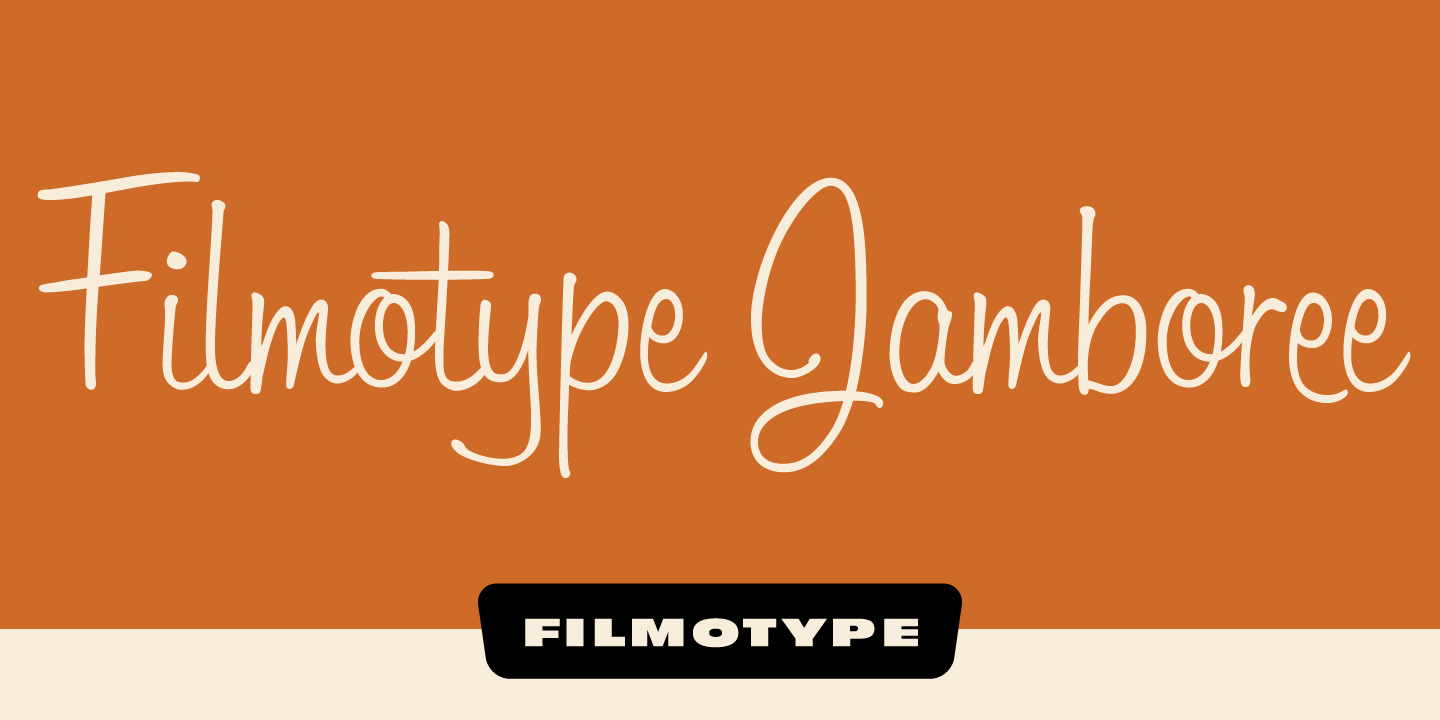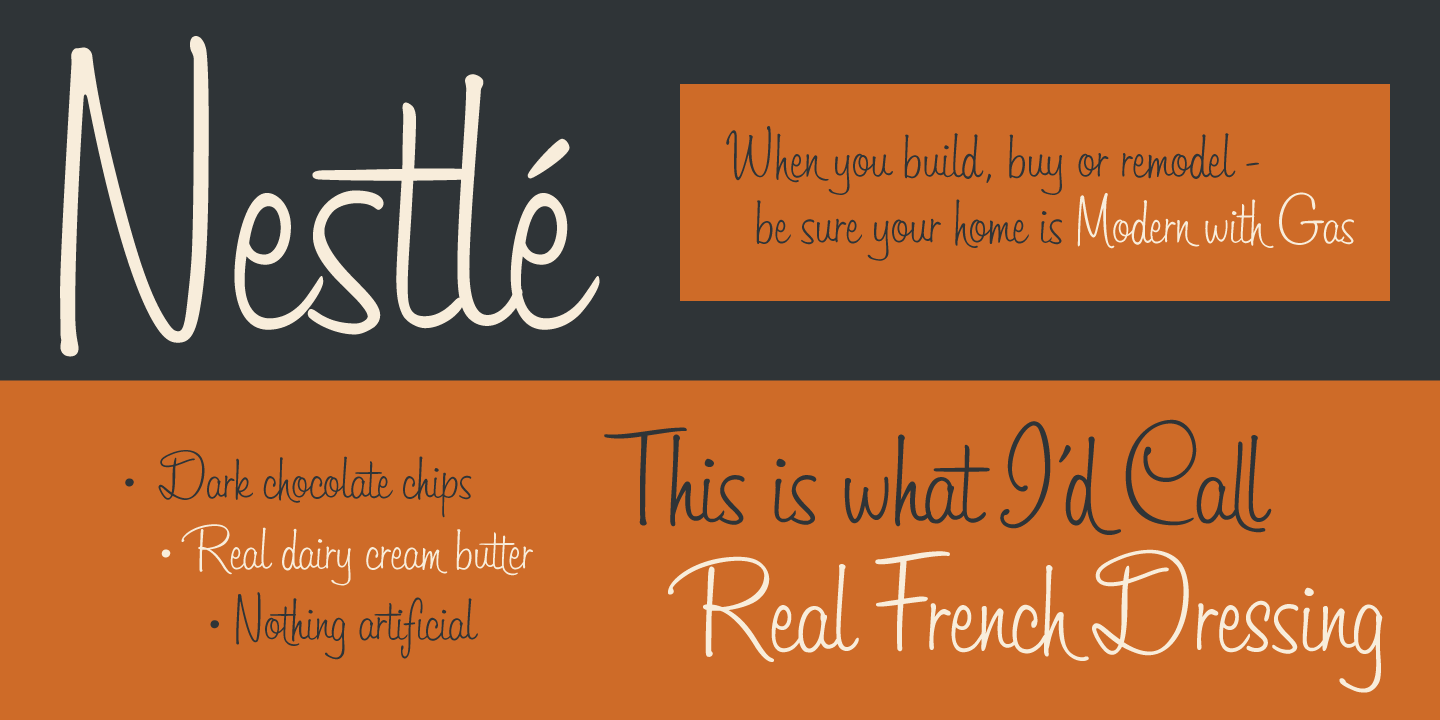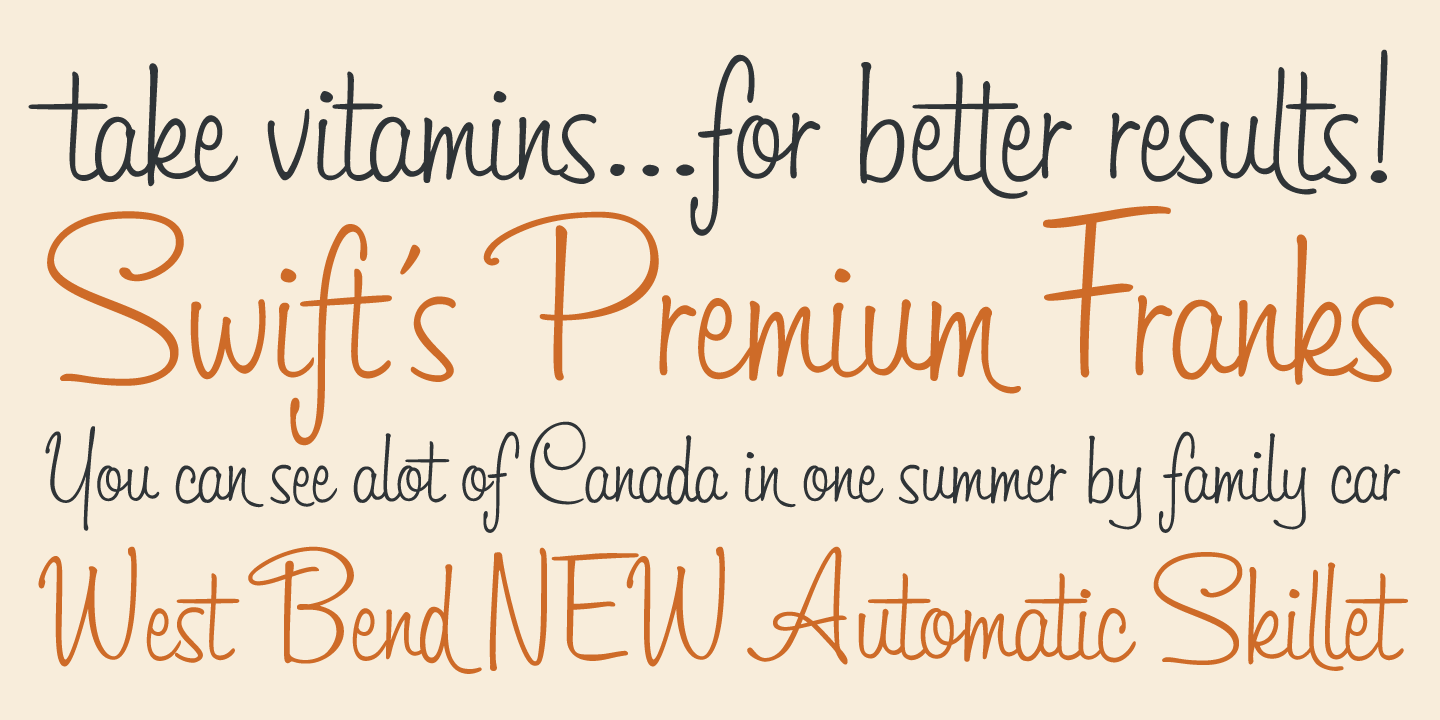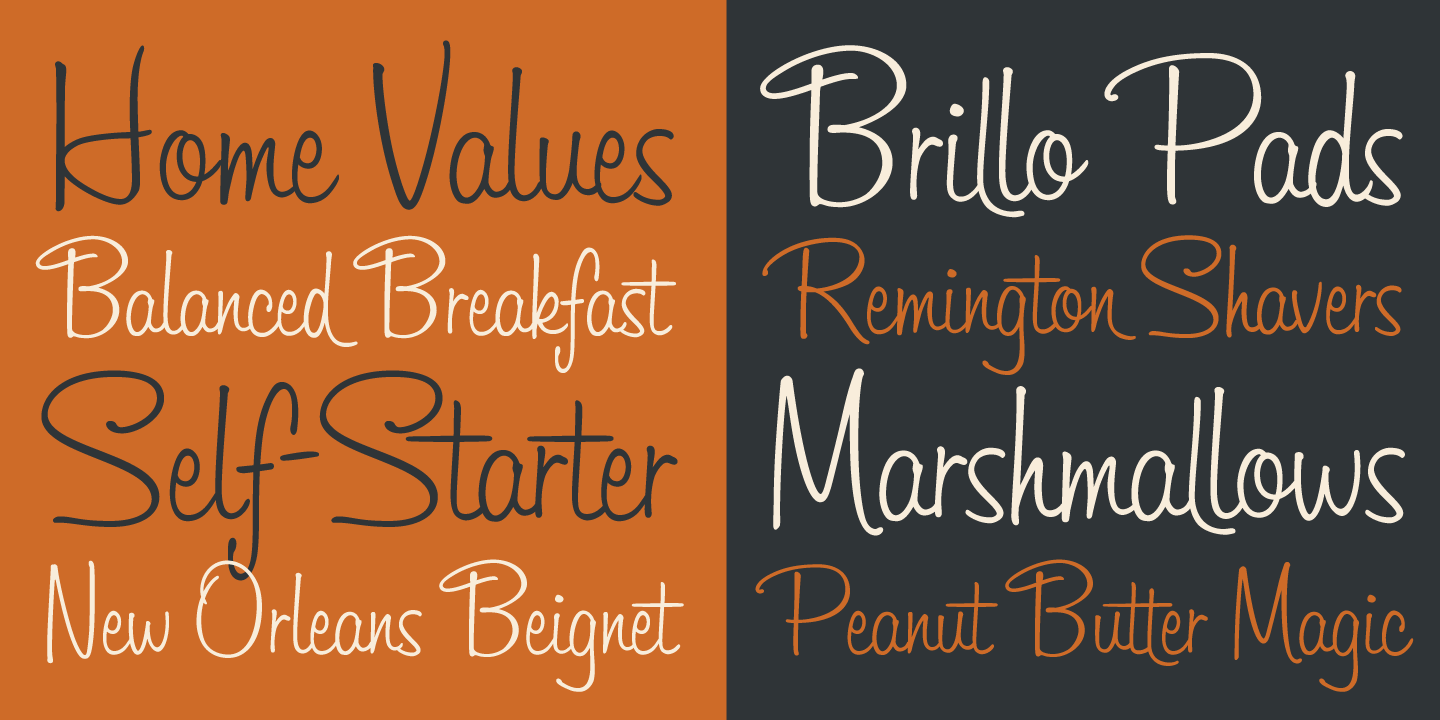
Filmotype Jamboree
About Filmotype Jamboree
Filmotype Jamboree was released by Filmotype in mid-1960s to expand its Scripts category with a smart looking fresh informal upright pen-script! Filmotype Jamboree was developed from the original font filmstrips and includes a full international character…